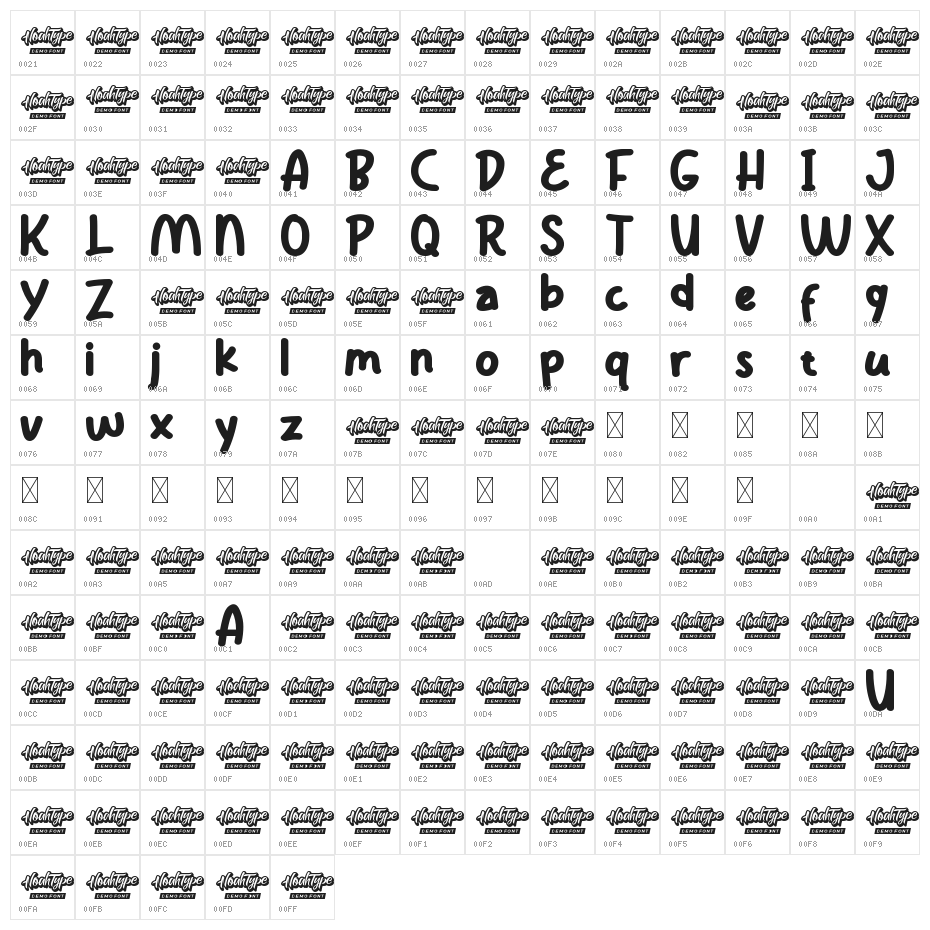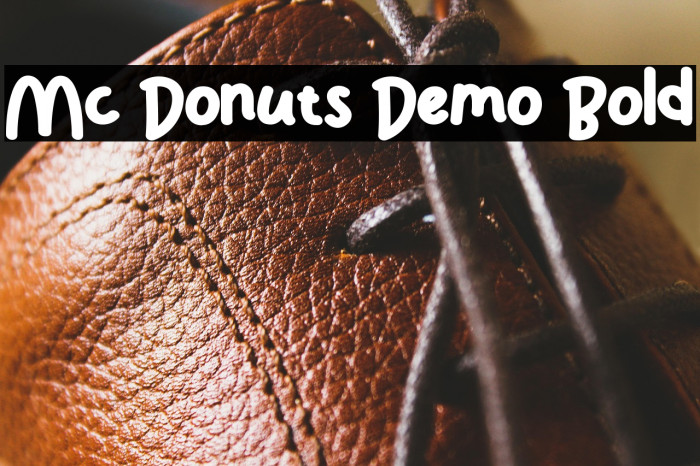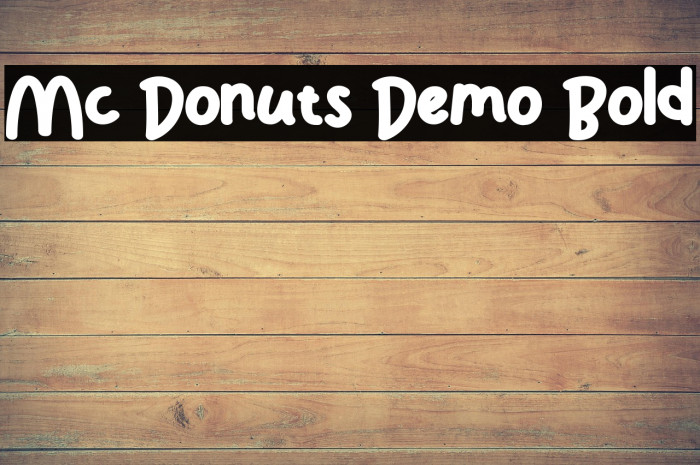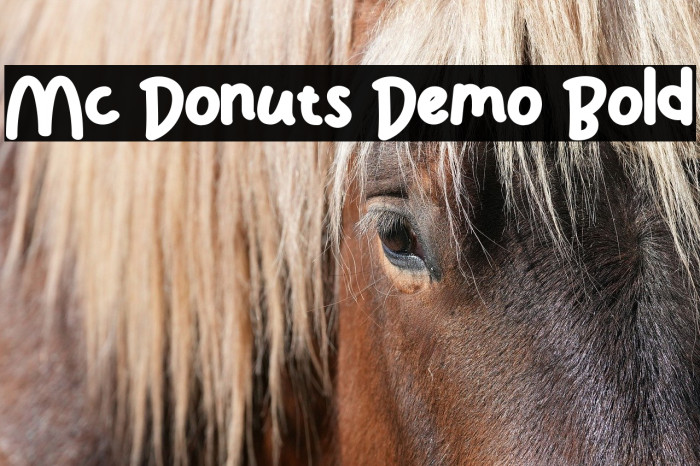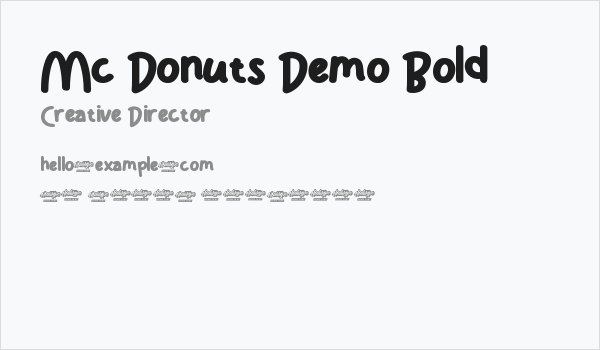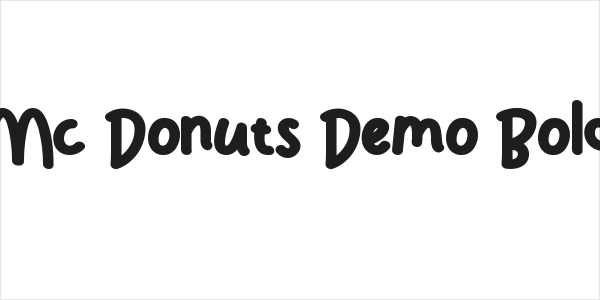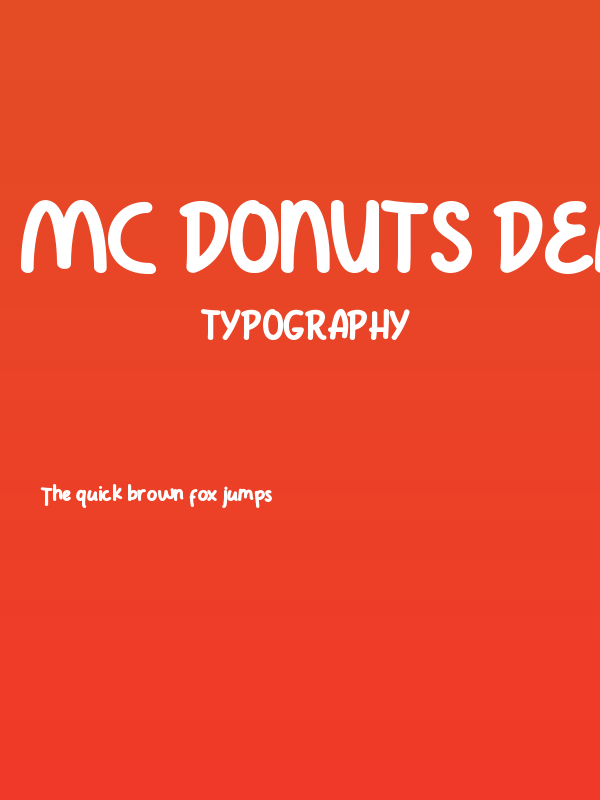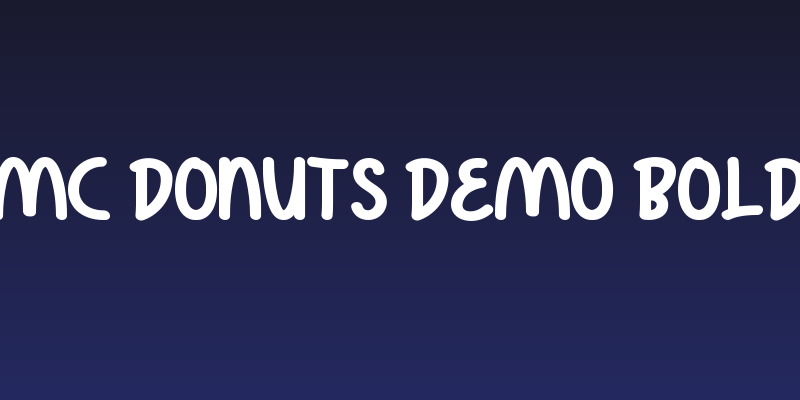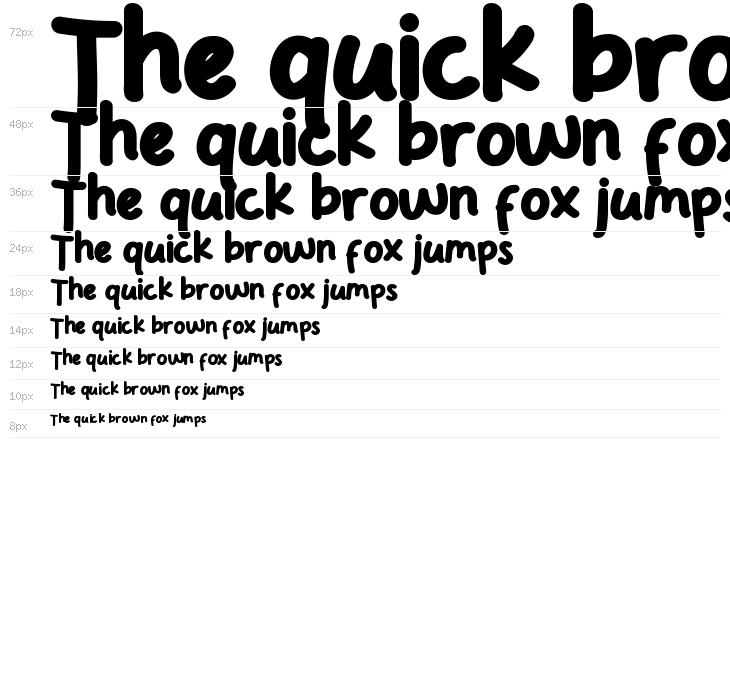
Mc Donuts Demo Bold Font
Mc Donuts Demo Bold Description
This font features a playful and bold style with rounded edges and a slightly irregular baseline, giving it a casual and friendly appearance. The characters are thick and substantial, making them highly legible and impactful. The uppercase and lowercase letters maintain a consistent style, with a whimsical touch that adds personality. The numbers and special characters follow the same design principles, ensuring uniformity across all elements. This font is ideal for projects that require a fun and approachable aesthetic.
| Overall Style | Playful, Casual |
| Proposed Projects | Perfect for children's books, playful branding, casual invitations, and fun social media graphics. |